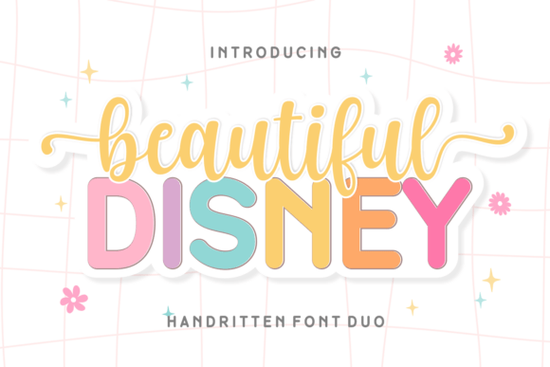
If you're looking for a pair of fonts that work beautifully together especially for romantic, feminine, or lifestyle-themed designs the Beautiful Disney Duo Font is a thoughtful, well-balanced choice. It’s not just “cute” or “Disney-themed” in a literal sense; it’s a carefully crafted font duo designed to complement each other visually and functionally. One part is an airy, tall sans-serif display font clean and legible at larger sizes while the other is a soft, flowing script with gentle curves and consistent rhythm. Together, they create contrast without clashing, making them especially useful for branding, packaging, and social media graphics where tone and readability both matter.
When does this font pair shine?
This duo works best when you need two distinct but harmonious voices in one design: a strong headline or logo base (the sans-serif) paired with a delicate accent or tagline (the script). Think of beauty salon logos where the business name sits bold and clear, while “Glow • Renew • Radiate” flows softly underneath. Or cosmetic product labels where “Lavender Dream Serum” appears crisp and modern, and “handcrafted with love” curls gently beside it.
It’s also popular among print-on-demand sellers creating Valentine’s Day cards, wedding stationery, or boutique skincare packaging. Because the script isn’t overly ornate or hard to read, it scales well across formats from Instagram story text overlays to printed gift tags. And unlike some script fonts that feel dated or overly formal, this one carries a light, contemporary ease like handwriting you’d actually want to read twice.
How does it compare to other popular script + sans combos?
Like the Farmhouse Breakfast Duo Font, it offers intentional pairing but leans more toward refined elegance than rustic charm. Compared to the Wedding Font Script collection, it’s less traditional and more adaptable to non-wedding uses like fashion blogs or seasonal promotions. And while the Winter December Font has cozy, holiday-specific flair, the Beautiful Disney Duo Font stays versatile year-round.
You’ll also notice it shares a similar graceful flow with the Milkshake Honey Font, though it’s slightly more structured and less playful making it a better fit for premium or wellness-oriented brands.
- Do you need two fonts that look like they belong together not just stacked, but balanced?
- Is your brand or product aesthetic soft, elevated, and intentionally feminine but not overly sweet or childish?
- Are you designing for beauty, wellness, fashion, or lifestyle niches where clarity and charm both matter?
If yes, this duo fits naturally. If your work leans heavily into vintage, grunge, tech, or masculine themes or if you need multilingual support (e.g., Cyrillic or extended diacritics) you’ll likely want to explore other options.
- Test both fonts together at your intended size and background color some pastel-tinted versions of the sans-serif may need slight contrast adjustment on light backgrounds.
- Pair wisely: Avoid adding a third decorative font it’s designed as a duo, not a trio. Let the contrast do the work.
- Use real words, not placeholder text, when testing layouts the script’s rhythm shines best with natural phrasing like “Just for you” or “Made with care.”